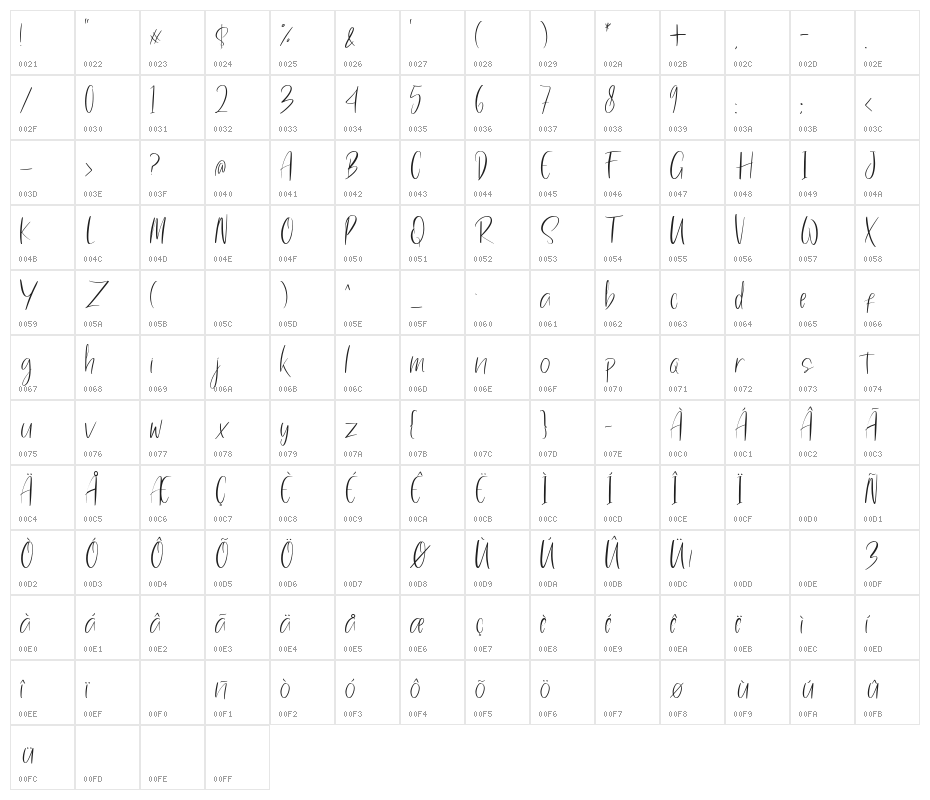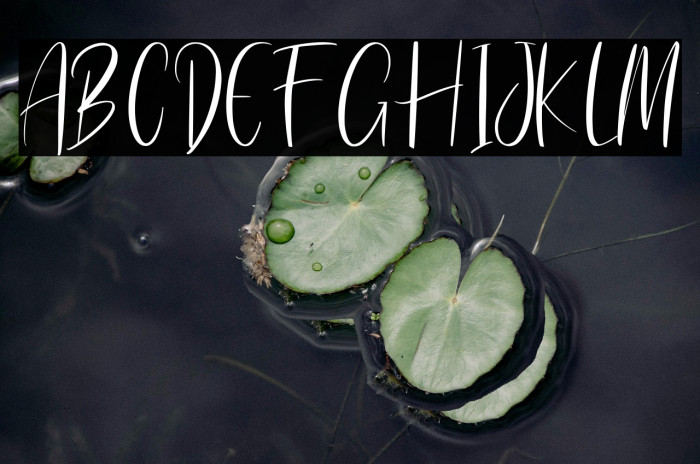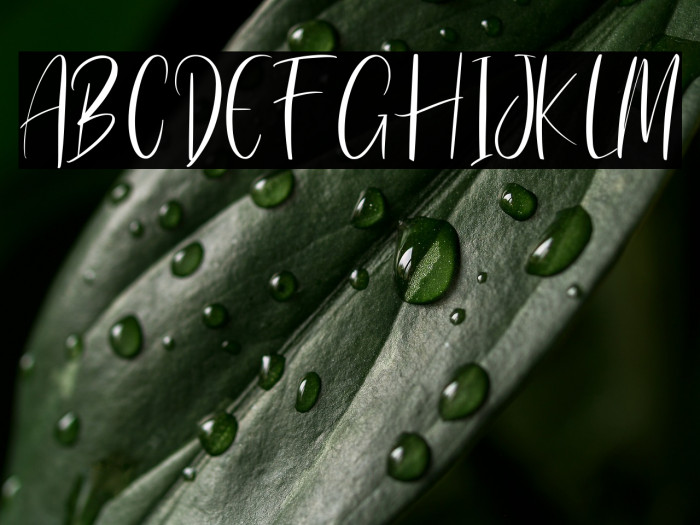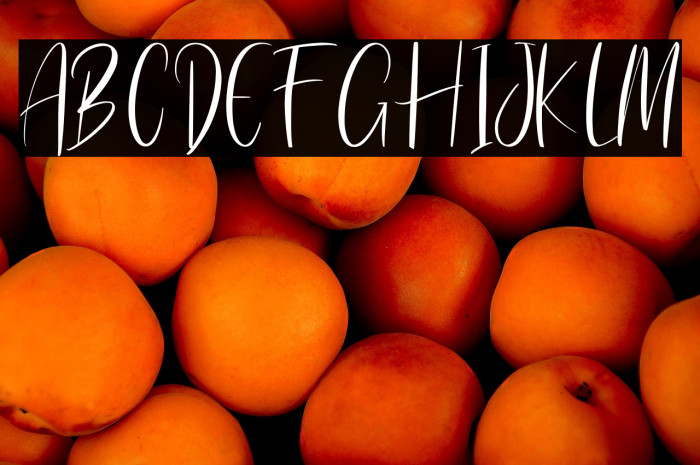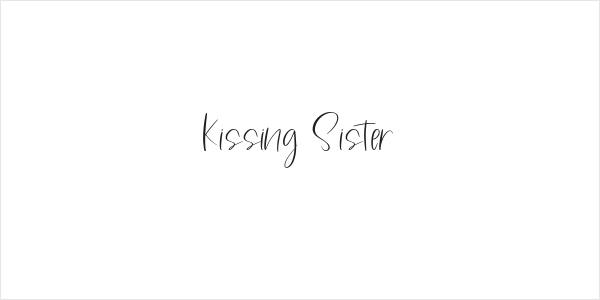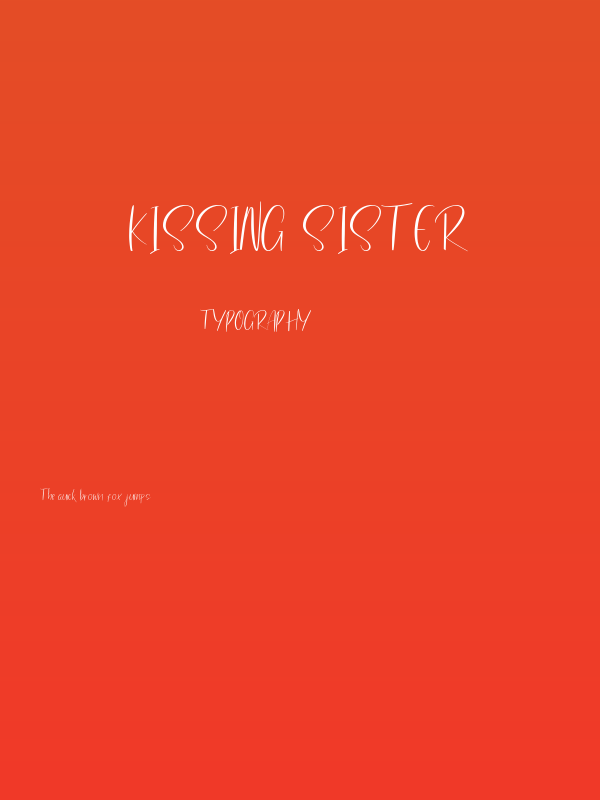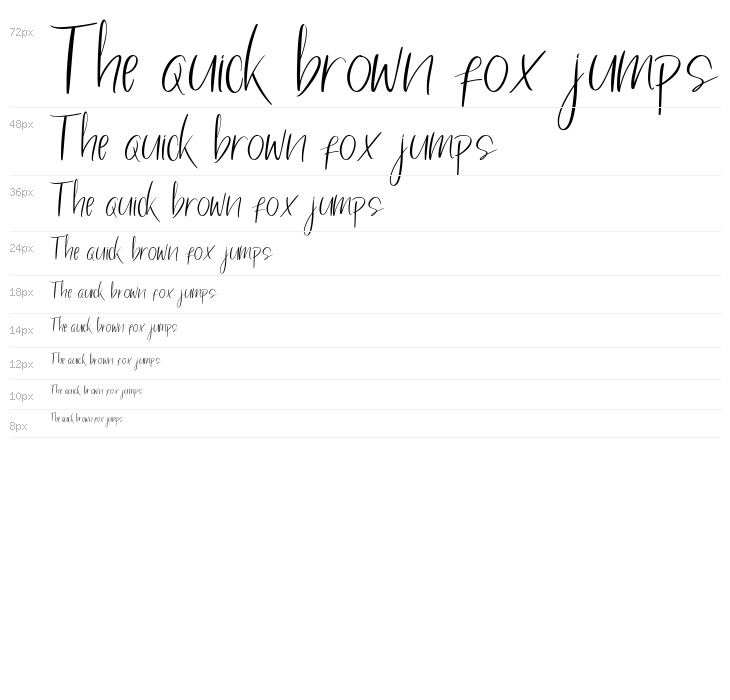
Kissing Sister Font
Kissing Sister Description
This font features a playful and whimsical handwritten style, characterized by its flowing and slightly irregular letterforms. The uppercase letters are tall and slender, with a slight slant that adds to the casual feel. The lowercase letters maintain a consistent style, with loops and curves that enhance the handwritten aesthetic. Numbers and special characters follow the same design principles, ensuring a cohesive look across all characters. The strokes vary in thickness, providing a dynamic and lively appearance. This font is perfect for projects that require a personal touch and a sense of creativity.